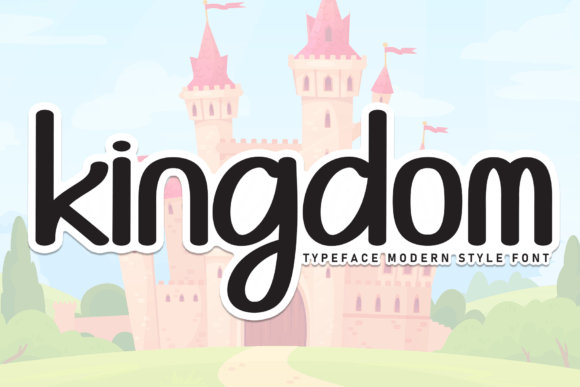
Immerse yourself in the realm of enchantment with Kingdom Font, a captivating handwritten font that will transport you to a world of mystique and charm. Step into the realm of imagination, where your creative visions take flight and your designs come alive with captivating elegance.
Crafted with meticulous care by the masterful hands of Roronoa zoro.S.P.D, Kingdom Font is not just a collection of letters; it is an art form that dances across your screen. Its fluid strokes and graceful curves evoke a sense of wonder, inviting you to unleash your inner storyteller and create designs that resonate with emotion.
Whether you're weaving the tale of a fantastical adventure, conjuring heartfelt greetings, or crafting headlines that demand attention, Kingdom Font stands as your faithful companion, guiding you through the labyrinth of creativity. Its versatility knows no bounds, seamlessly adapting to a myriad of projects, from enchanting greeting cards to bold headlines that captivate the imagination.
But Kingdom Font is more than just a beautiful face; it's a gateway to a world where your designs take on a life of their own. Its enchanting aura breathes life into your projects, transforming them from mere words on a page into captivating narratives that speak to the heart.
With each stroke of your keyboard, Kingdom Font weaves a tapestry of emotions, drawing your audience into a world that's both familiar and yet utterly magical. Experience the transformative power of this remarkable font and let your creativity flourish in ways you never thought possible.